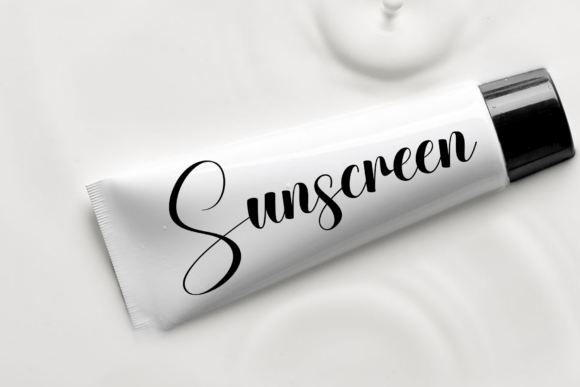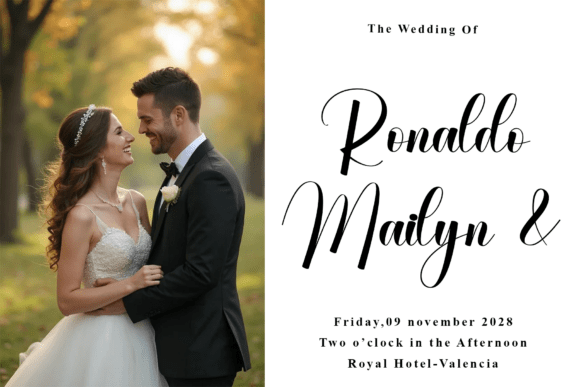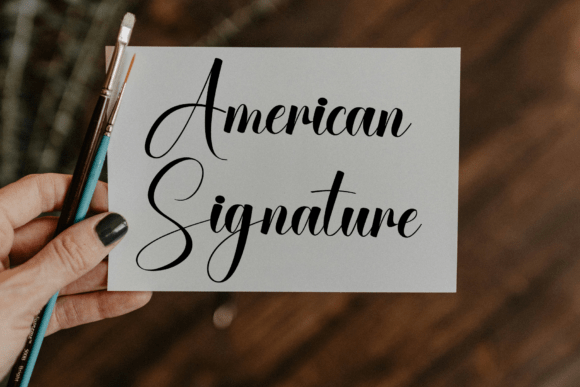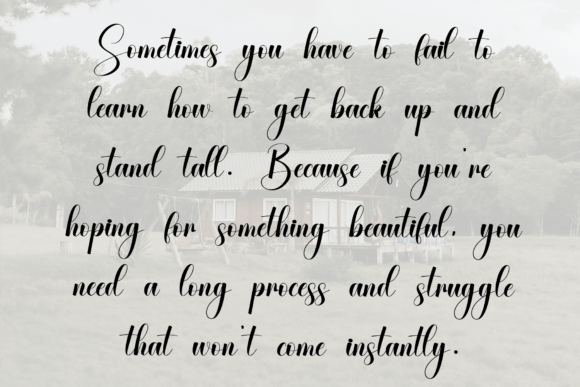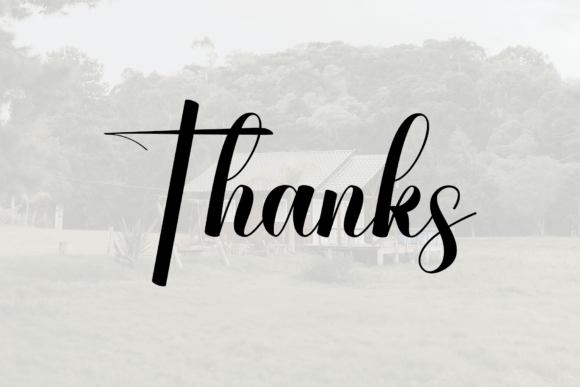
Introducing Farmhouse Camping Font: Elevate Your Design with Modern Calligraphy
Are you a designer, crafty entrepreneur, or creative looking for a font that exudes confidence, charm, and a touch of sophistication? Look no further than Farmhouse Camping Font, a bold and expressive modern calligraphy font designed to bring character and personality to your projects. With its unique blend of energy, organic curves, and dramatic swashes, this font is perfect for a wide range of applications, from logo design and branding to wedding stationery and product packaging.
The Characteristics of Farmhouse Camping Font
Farmhouse Camping Font boasts several distinctive features that set it apart from other fonts. Its tall ascenders give it a sense of grandeur, while its dramatic swashes add a touch of elegance and whimsy. The organic curves and hand-drawn feel of each letter bring a sense of warmth and approachability, making it perfect for designs that require a personal touch.
One of the standout features of Farmhouse Camping Font is its ability to convey a sense of strength and sophistication. Every letter feels carefully crafted with intention, giving your designs a confident and stylish impression that’s sure to leave a lasting impact.
Farmhouse Camping Font is incredibly versatile and can be used in a variety of design applications. Here are just a few ideas to get you started:
- Logo Design: Create a memorable and impactful logo that stands out from the crowd with Farmhouse Camping Font.
- Instagram Posts: Elevate your social media game with stylish and eye-catching posts that showcase your brand’s personality.
- Business Cards: Make a lasting impression with professional and stylish business cards that feature Farmhouse Camping Font.
- Product Packaging: Add a touch of elegance and sophistication to your product packaging with this beautiful font.
- Wedding Stationery: Create stunning wedding invitations, programs, and other stationery with Farmhouse Camping Font.
- Fashion Branding: Perfect for fashion designers and brands looking for a font that exudes style and sophistication.
Who is Farmhouse Camping Font For?
Farmhouse Camping Font is ideal for:
- Creators: Artists, designers, and makers looking for a font that adds a personal touch to their work.
- Entrepreneurs: Small business owners and entrepreneurs who want to make a confident and stylish impression.
- Branding Experts: Marketing and branding professionals looking for a font that can help elevate their client’s brand.
Why Choose Farmhouse Camping Font?
With so many fonts available, why choose Farmhouse Camping Font? Here are just a few reasons:
- Unique and Expressive: Farmhouse Camping Font is a one-of-a-kind font that adds a touch of personality to your designs.
- High-Quality: Professionally crafted with attention to detail, ensuring a high-quality font that performs well in a variety of applications.
In conclusion, Farmhouse Camping Font is a versatile and stylish modern calligraphy font that’s perfect for designers, crafters, and entrepreneurs looking to add a touch of elegance and sophistication to their projects. With its unique blend of energy, organic curves, and dramatic swashes, this font is sure to make a lasting impression.